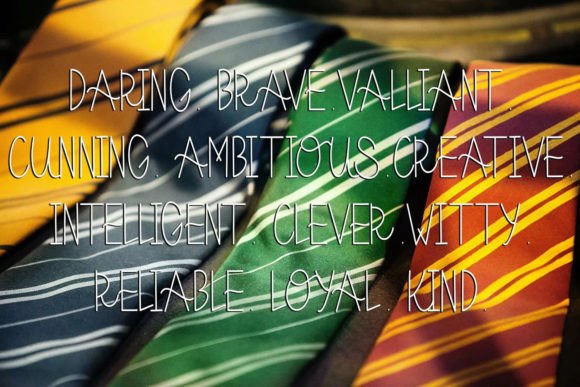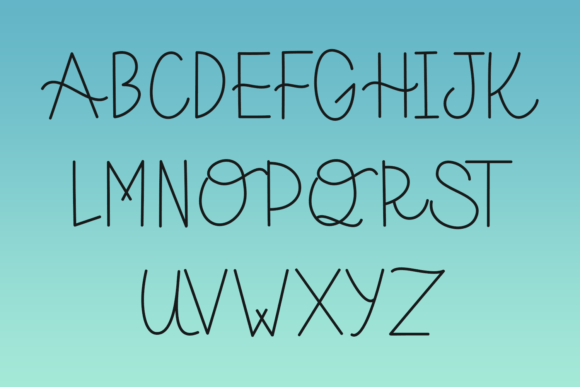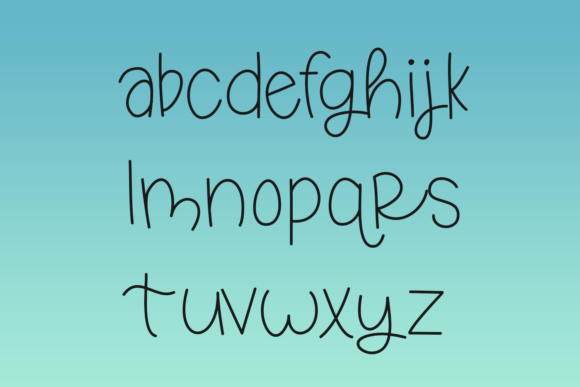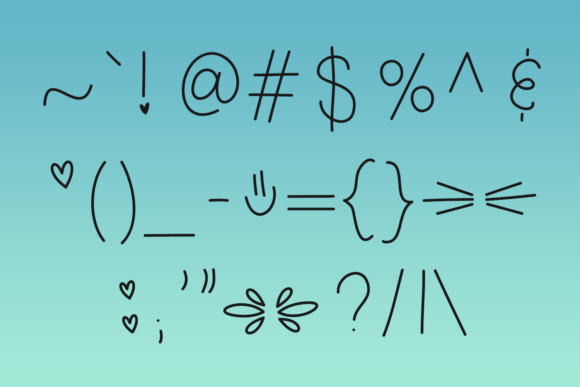
Dumbledork Font: Add a Touch of Whimsy to Your Designs
Are you tired of using the same old fonts in your designs? Look no further than the Dumbledork font, a fun and quirky handwritten font that’s sure to add a touch of personality to any project. In this article, we’ll take a closer look at the Dumbledork font, its features, and how you can use it to take your designs to the next level.
What is Dumbledork Font?
Dumbledork is a thin, handwritten font that’s perfect for designers and crafters looking to add a bit of whimsy to their work. The font features a unique, cursive style with a playful feel that’s sure to capture the attention of your audience. Whether you’re working on a card, invitation, notebook, or any other project, Dumbledork is a great choice.
Features of Dumbledork Font
So, what makes Dumbledork font so special? Here are just a few of its key features:
- Handwritten style: Dumbledork has a unique, handwritten look that’s perfect for adding a personal touch to your designs.
- Thin lines: The font features thin lines that give it a delicate, elegant feel.
- Quirky personality: Dumbledork has a playful, quirky personality that’s sure to shine through in your designs.
- Versatile: This font is perfect for a wide range of projects, from cards and invitations to notebooks and stickers.
Using Dumbledork Font in Your Designs
So, how can you use Dumbledork font in your designs? The possibilities are endless! Here are a few ideas to get you started:
- Cards and invitations: Dumbledork is a great choice for creating personalized cards and invitations for special occasions.
- Notebooks and journals: Add a touch of personality to your notebooks and journals with Dumbledork font.
- Water bottles and stickers: Use Dumbledork to create fun and quirky designs for water bottles and stickers.
- Designs and decals: Dumbledork is perfect for creating custom designs and decals for laptops, water bottles, and more.
Tips for Using Dumbledork Font
Here are a few tips for getting the most out of Dumbledork font:
- Keep it simple: Dumbledork font is best used in simple, straightforward designs. Avoid cluttering your design with too many elements.
- Experiment with colors: Dumbledork font looks great in a variety of colors. Experiment with different colors to find the one that works best for your design.
- Pair with other fonts: Dumbledork font pairs well with other fonts. Try pairing it with a bold font for a striking contrast.
| Font Name | Dumbledork Font |
| Author | Flourish And Pixels |
In conclusion, Dumbledork font is a fun and quirky handwritten font that’s perfect for designers and crafters looking to add a touch of personality to their work. With its unique, cursive style and playful feel, Dumbledork is sure to capture the attention of your audience. Whether you’re working on a card, invitation, notebook, or any other project, Dumbledork is a great choice. So why not give it a try and see what amazing designs you can create?
- What is Dumbledork font? Dumbledork font is a thin, handwritten font with a quirky personality.
- What can I use Dumbledork font for? Dumbledork font is perfect for a wide range of projects, including cards, invitations, notebooks, water bottles, stickers, designs, and decals.
- Is Dumbledork font easy to read? Yes, Dumbledork font is easy to read, making it perfect for designs where you want to convey a message.
Get Creative with Dumbledork Font!